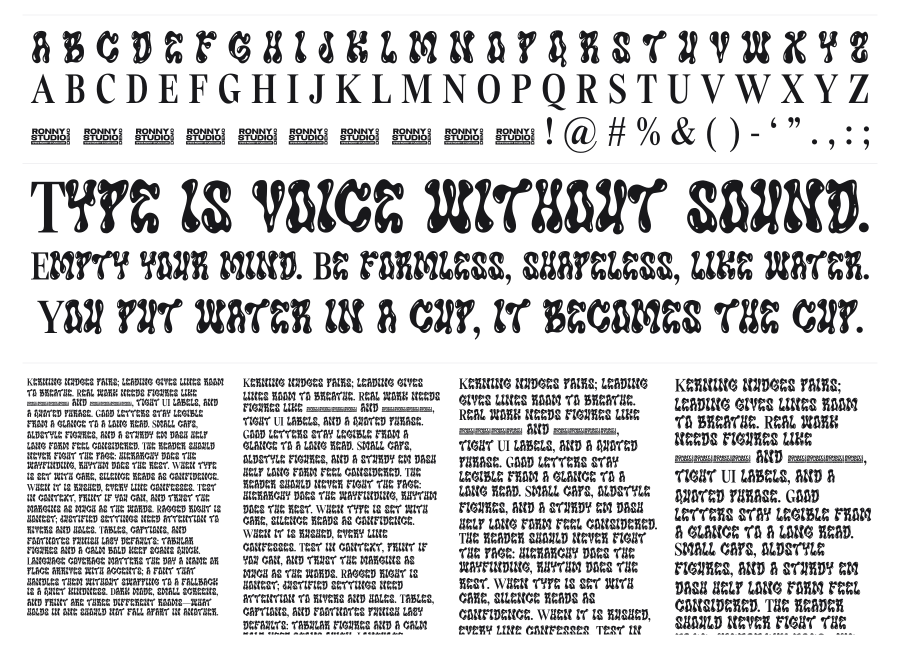
Bobaboy
Bobaboy is a heavy groovy display font with thick, fluid strokes that swell and drip like melted rubber. Its characters feel lifted straight from 1960s psychedelic poster art, packed with bubbly energy and retro charm. Strong at large sizes for packaging, branding, and any project that needs bold personality.